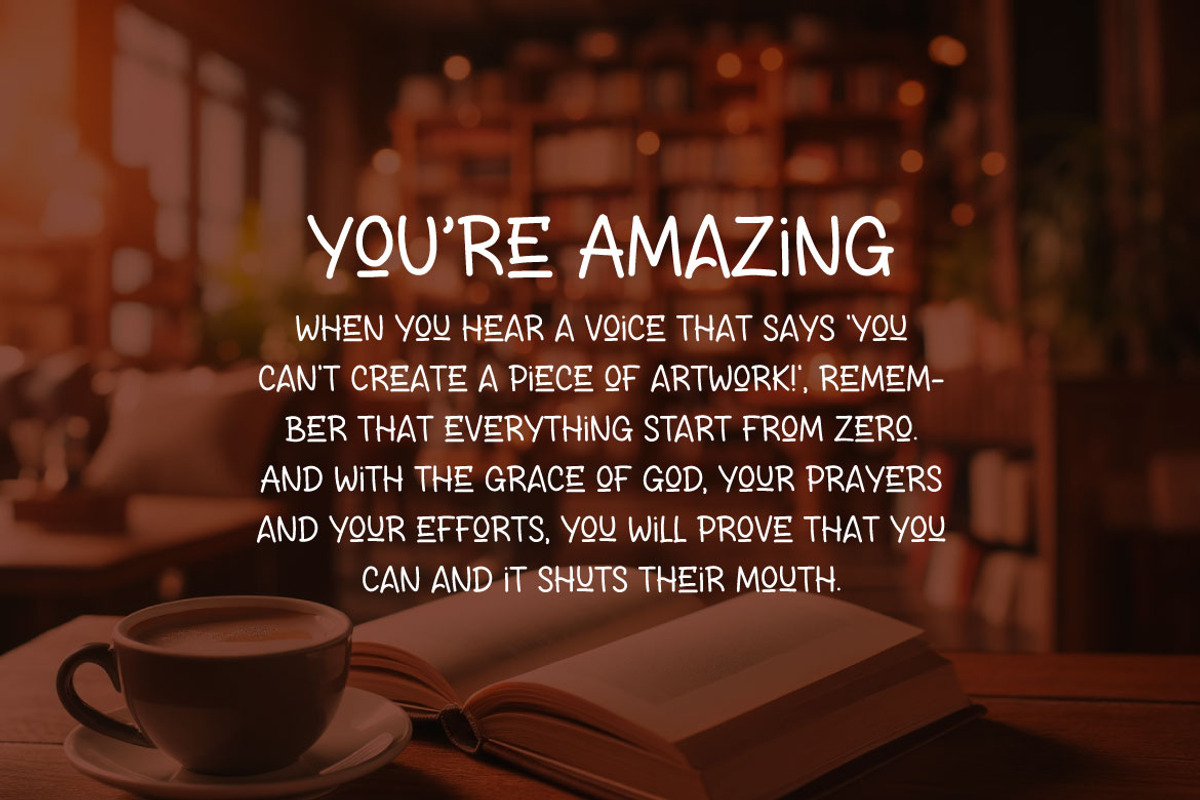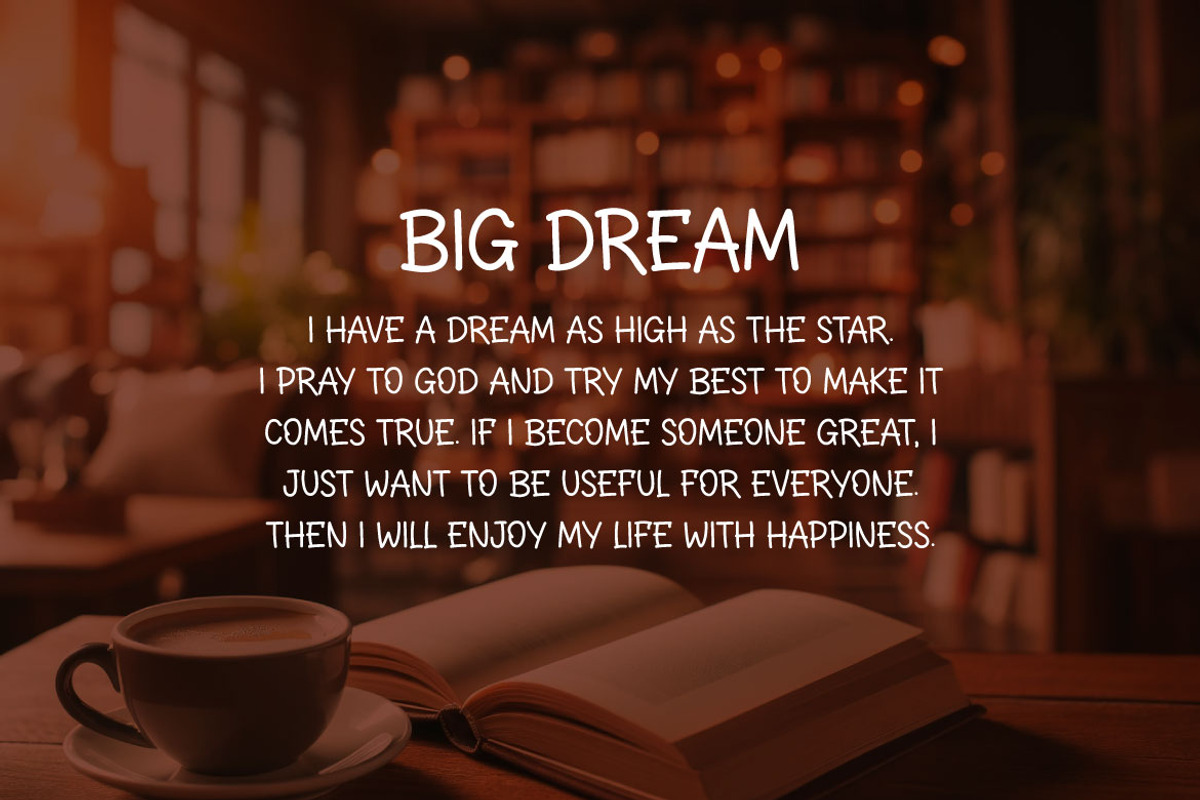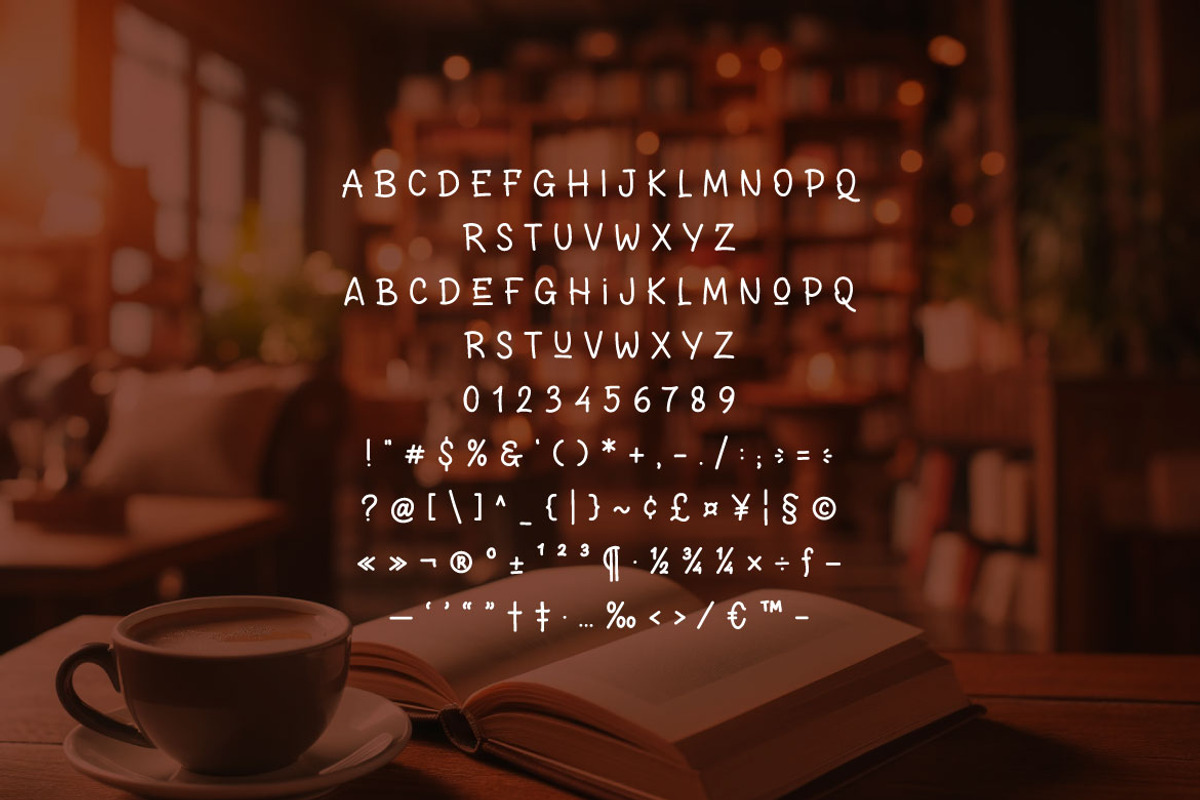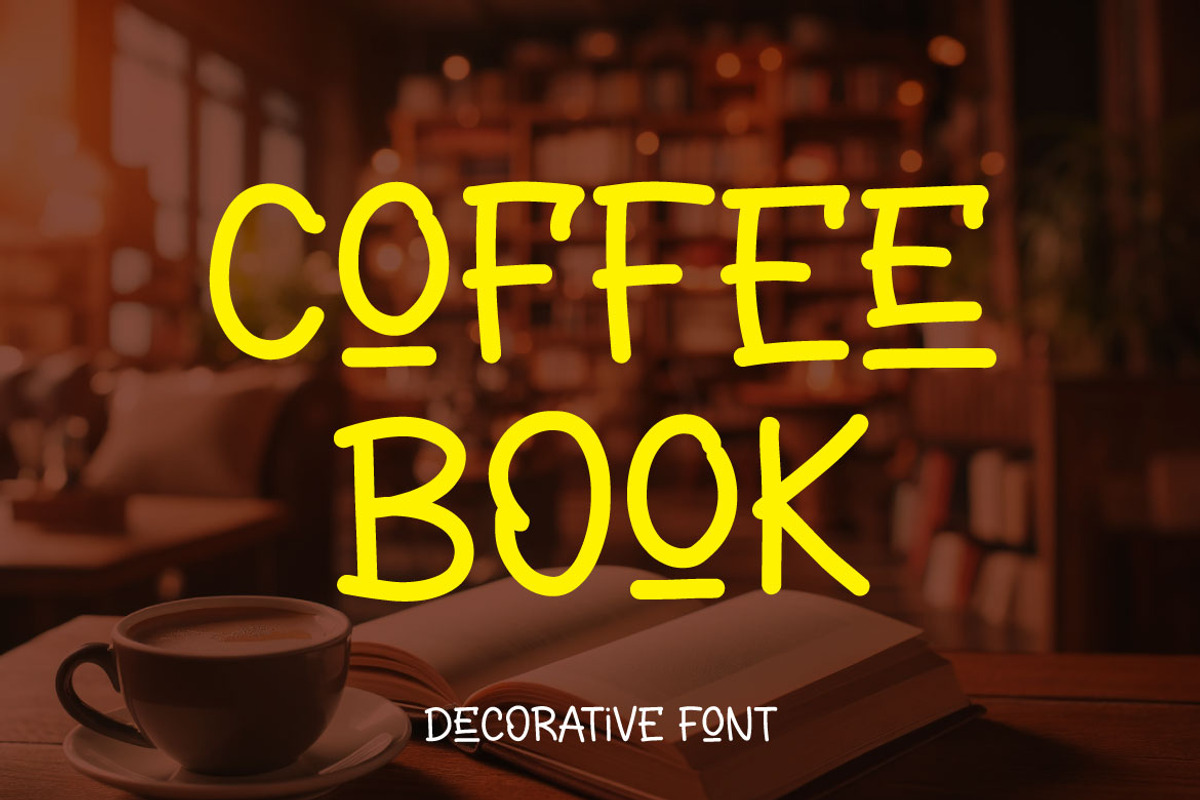
Coffee Book - Simple Decorative Font
Introducing Coffee Book, a simple yet sophisticated decorative font that adds a touch of class and refinement to your designs. With its clean lines and subtle ornamental details, Coffee Book is perfect for a variety of creative projects where you want to convey elegance and style. This font is ideal for invitations, logos, posters, and more.
Coffee Book combines simplicity and decorative charm in a way that enhances any design. Its clean and sophisticated look makes it a versatile font that can be used across a wide range of projects, adding a touch of class and elegance wherever it's applied.